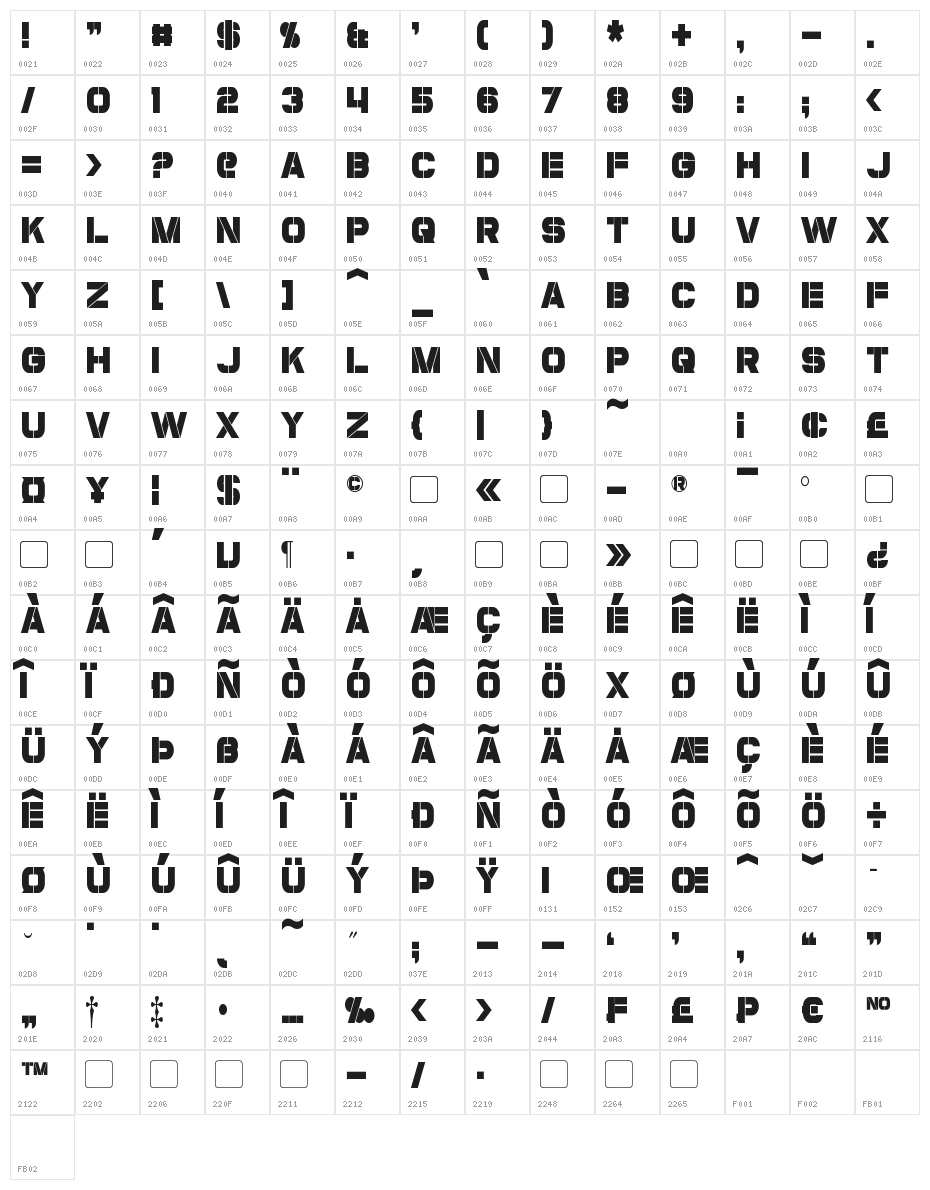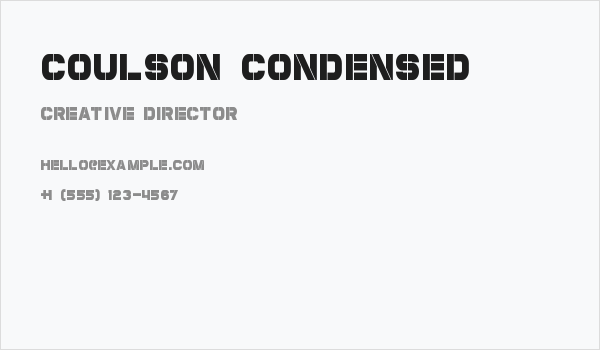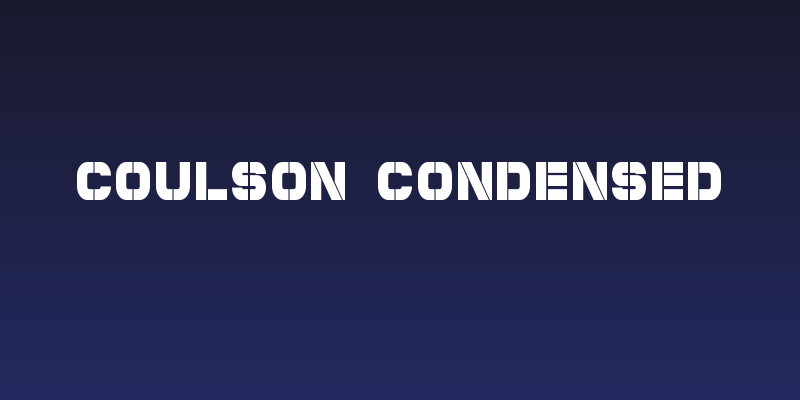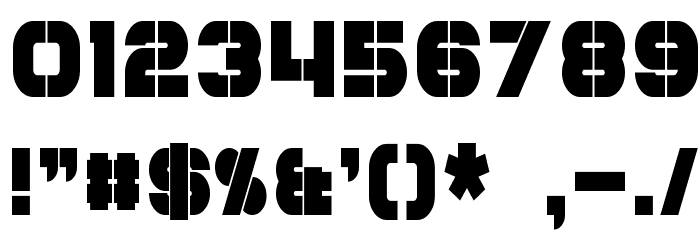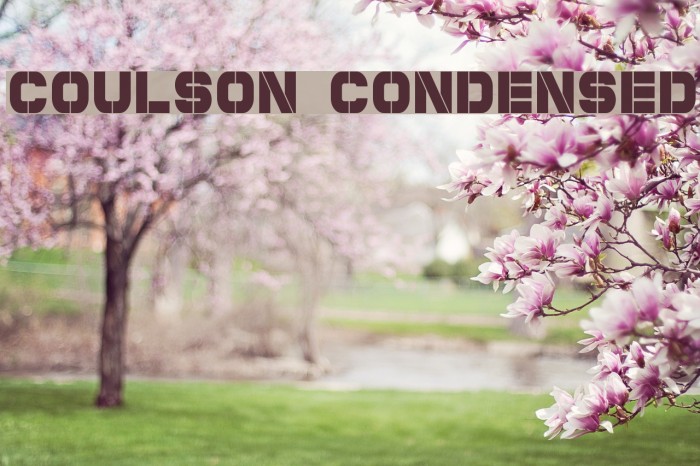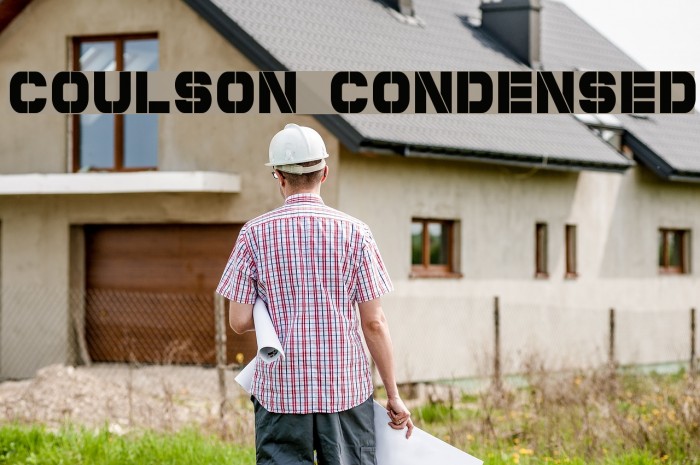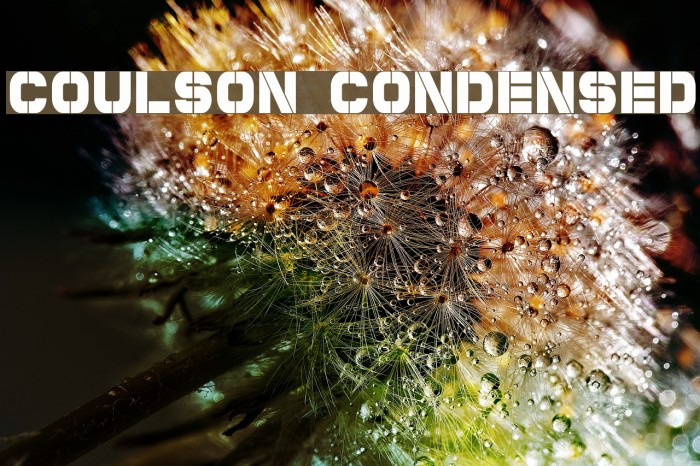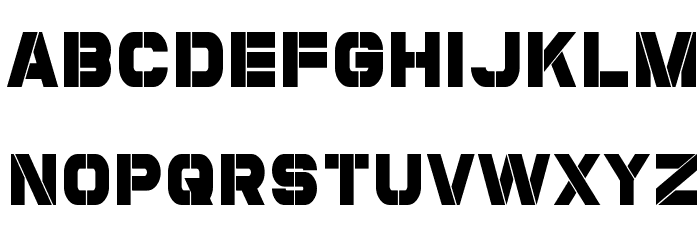
Coulson Condensed Font
Coulson Condensed Description
This font features a bold and striking design with a condensed width, making it ideal for impactful headlines and attention-grabbing displays. The characters are constructed with a geometric precision, showcasing a modern and industrial aesthetic. The uppercase letters are particularly prominent, with a uniform height and width that contribute to a cohesive and structured appearance. The numbers and special characters maintain this consistency, ensuring a seamless integration across various design elements. The font's boldness is complemented by its tight character spacing, which enhances its visual impact without compromising readability.
| Proposed Projects | Ideal for posters, branding, and editorial design where a strong visual presence is required. |